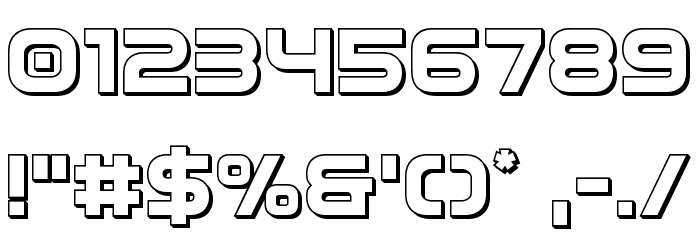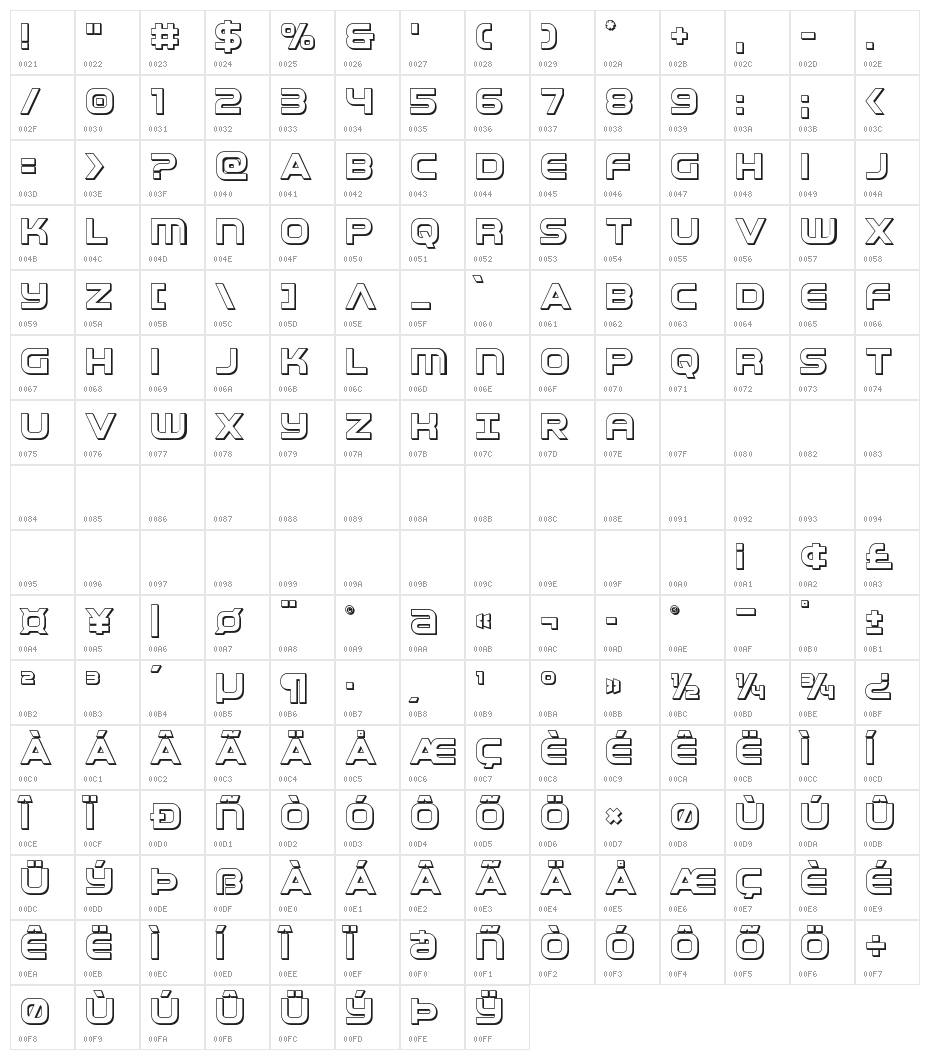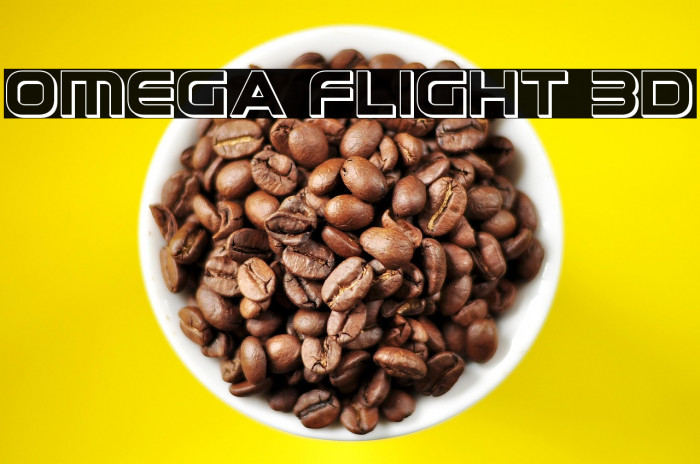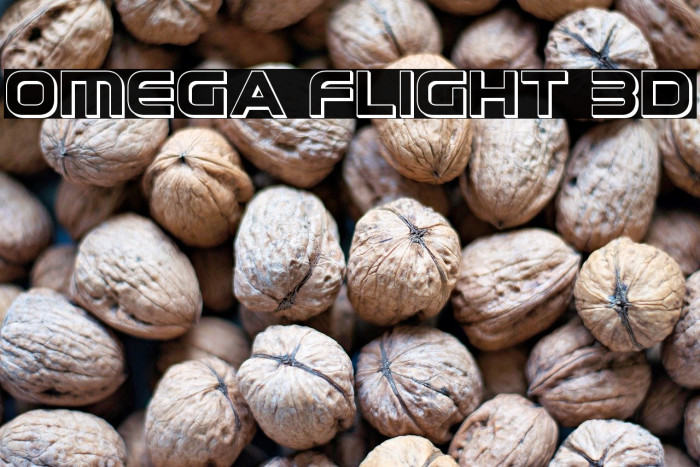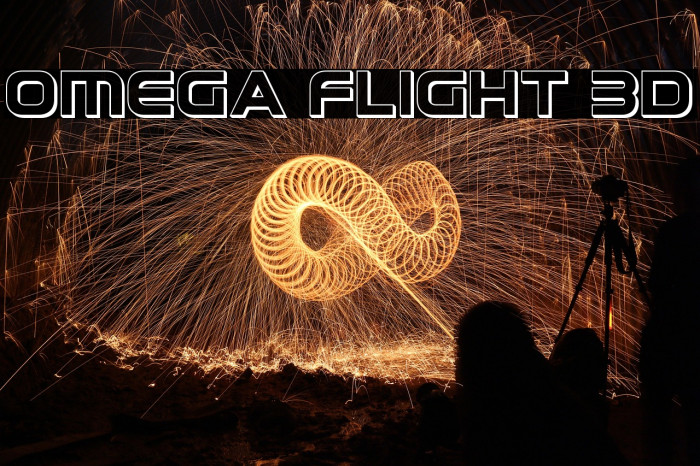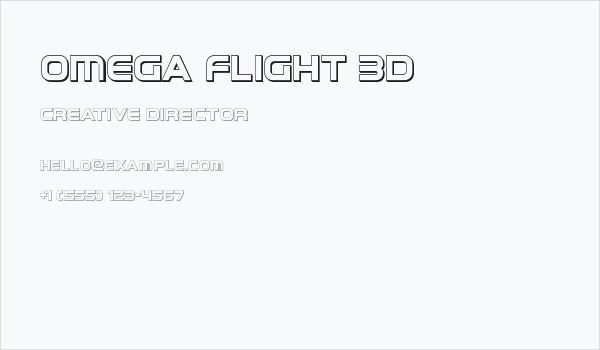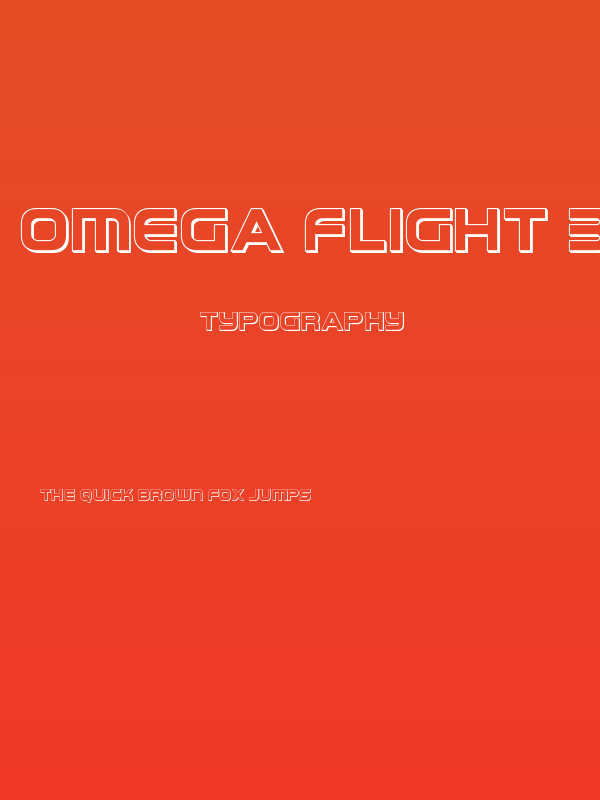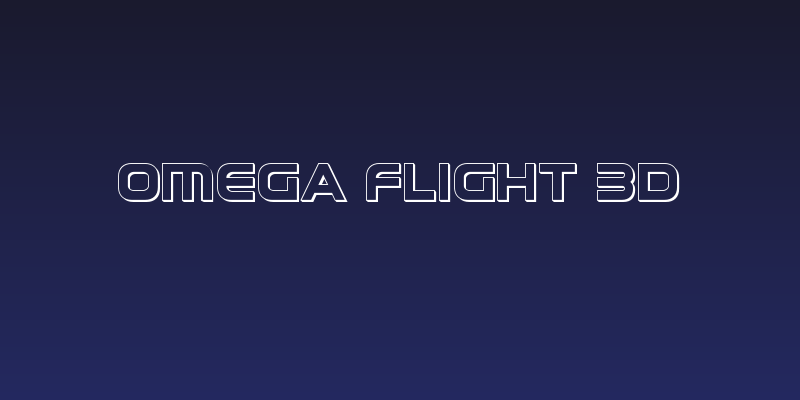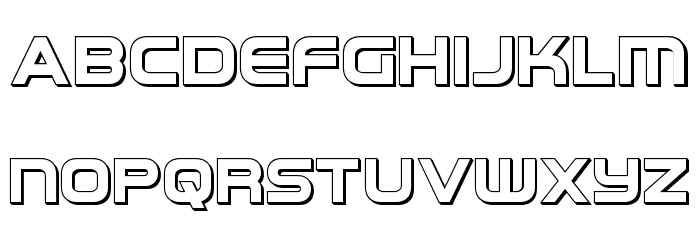
Omega Flight 3D Font
Omega Flight 3D Description
This font features a bold, futuristic design with a 3D effect that gives each character a sense of depth and dimension. The letters are outlined with a thick, uniform stroke, creating a striking visual impact. The geometric shapes and clean lines contribute to a modern and tech-inspired aesthetic. The uppercase and lowercase letters maintain a consistent style, with rounded edges and a slightly condensed form. The numerals and special characters follow the same design principles, ensuring a cohesive look across all elements. This font is ideal for projects that require a bold statement and a contemporary feel.